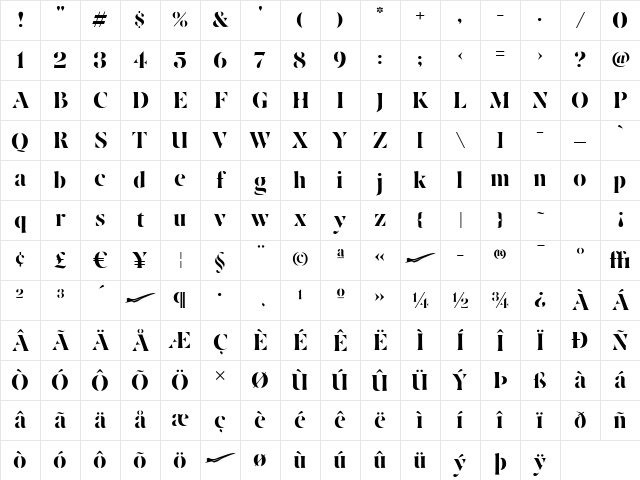
Avia-Bold is a composed and adaptable typeface that performs quietly and consistently across a wide range of design contexts. Its bold stroke weight gives it real presence on the page.